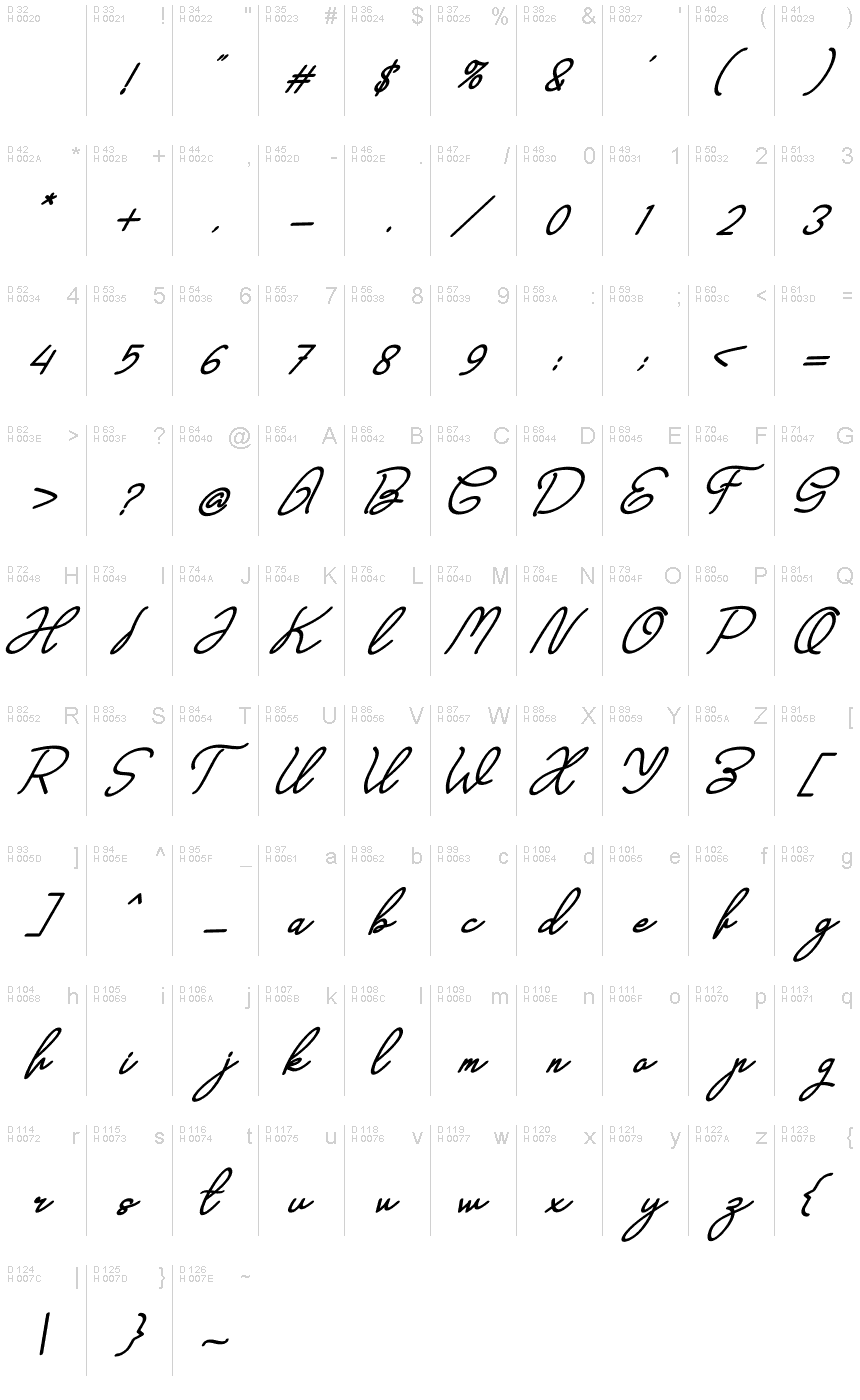
Yeah Bold Italic
The Yeah Bold Italic font from Design Vector10's Yeah family is a versatile and stylish typeface that exudes creativity and free-spiritedness. Its semi-light weight gives it an airy feel, while its handwritten style adds a personal touch to any project. This font is perfect for branding projects, such as logos or business cards, as well as for marketing materials like flyers or social media graphics. Its unique character also makes it suitable for artistic projects like posters or album covers. With Yeah Bold Italic, your design will stand out and leave a lasting impression.